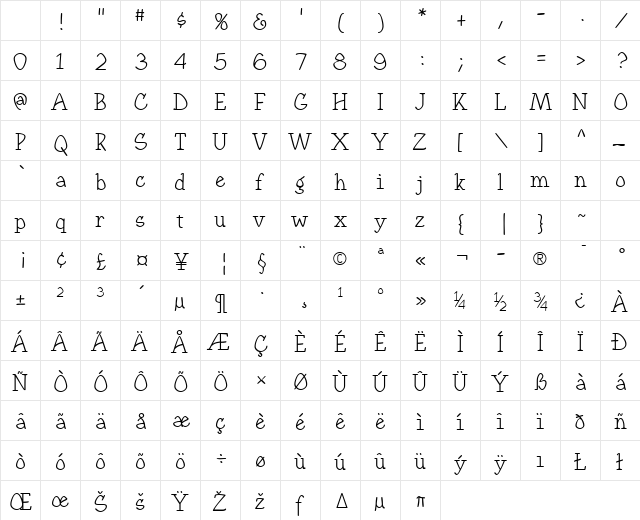
KampFriendship Plain Free Font
KampFriendship Plain
KampFriendship Family
Complete KampFriendship Plain glyph index. Displaying only characters natively supported by KampFriendship Plain font.
Design Context for KampFriendship
KampFriendship is a composed and adaptable typeface that performs quietly and consistently across a wide range of design contexts.